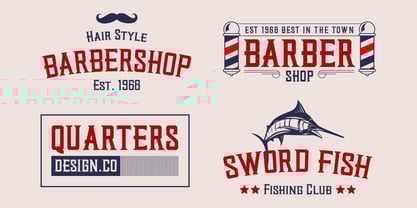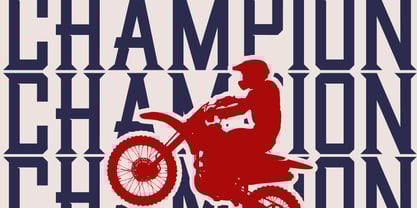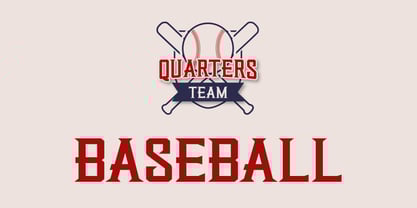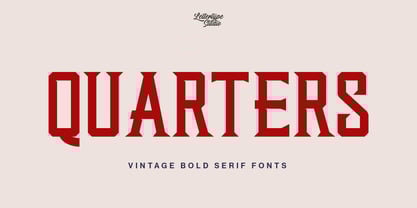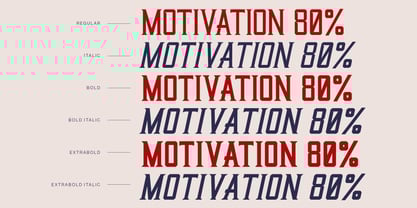
Quarters
by Lettertype Studio
The Quarters Font Family was designed by Diki Pradipta Tri Atmojo and published by Lettertype Studio. Quarters contains 6 styles and family package options. More about this family
Quarters is a vintage bold serif font inspired by urban culture with strong characters. Welcome to the new bold world serif characters, that fonts will help for any of your projects. This font will be perfect for your logo design, branding, clothing, sports graphics, posters, editorial titles, headlines, etc.
Designers: Diki Pradipta Tri Atmojo
Foundry: Lettertype Studio